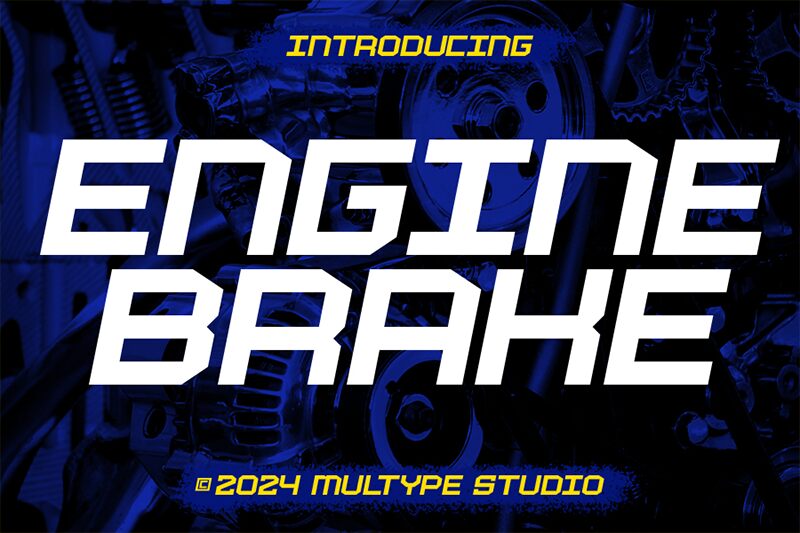
Racing Engine Brake font by Multype Studio is a futuristic display font with unique expanded letter dimensions. The design reveals itself in a rounded overall body with partially angular characters especially at opposing stroke edges. While general stroke thickness remains uniform, joints are clearly visible and the center of curved corners has an extra-thick stylish dot.